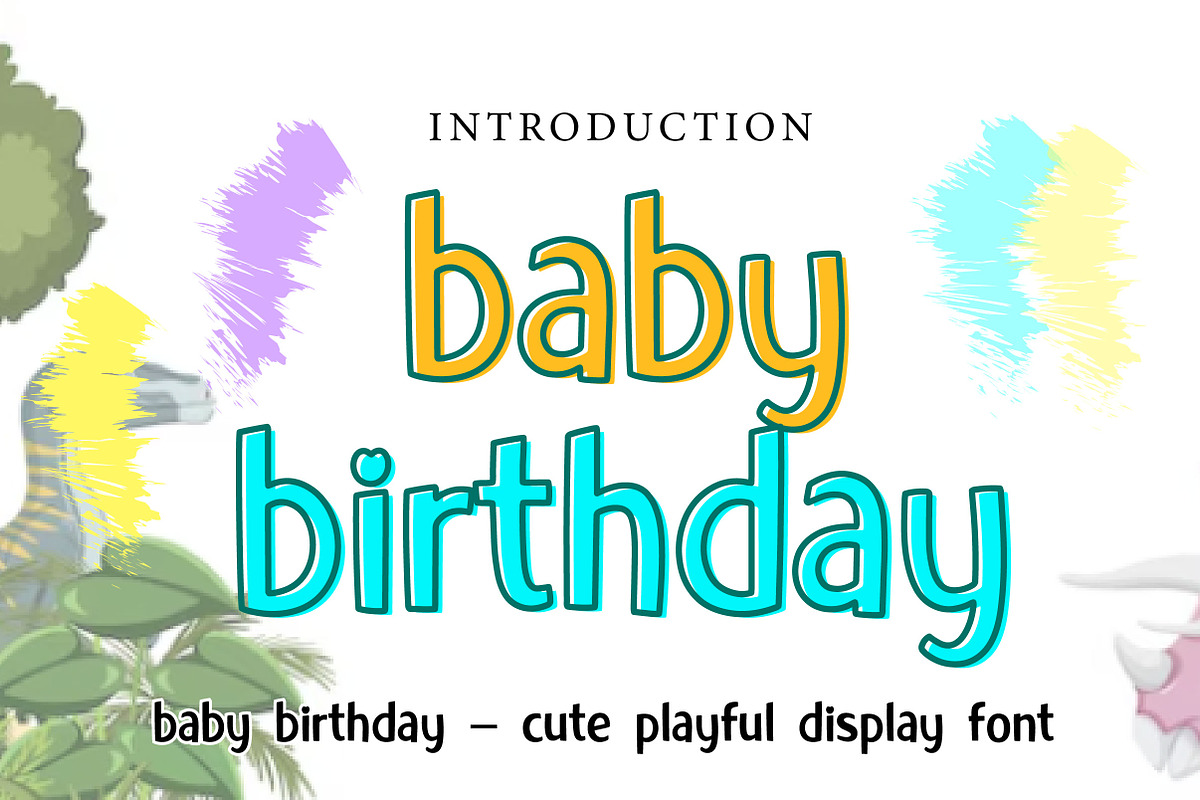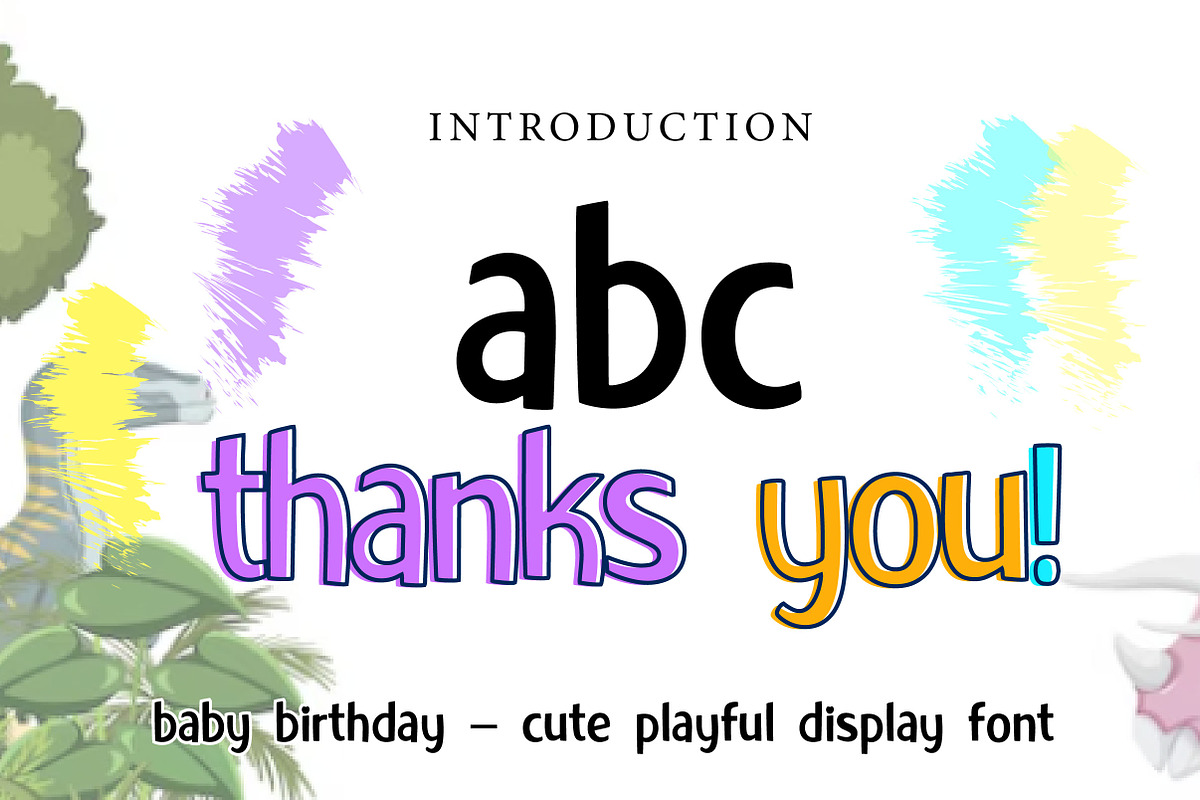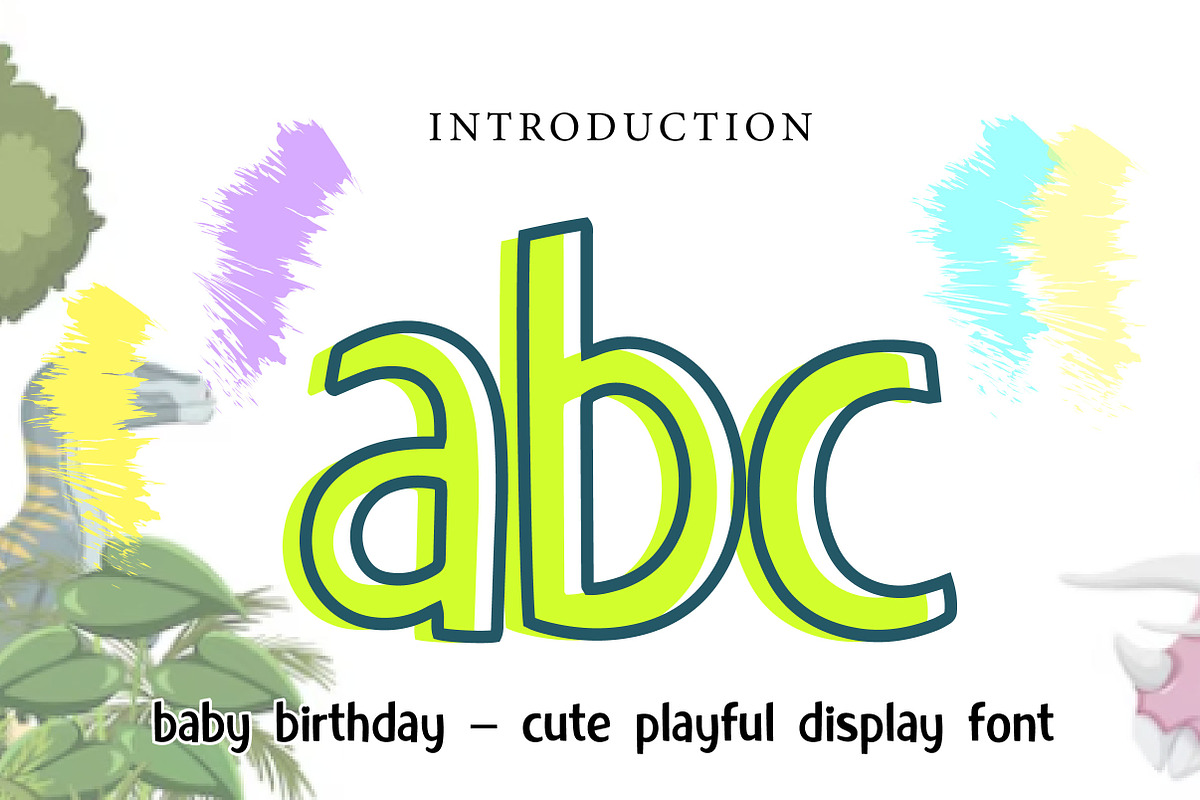
Baby Birthday
Baby Birthday – Cute Playful Display Font
Baby Birthday is a cute, soft, and playful display font, perfect for baby-themed designs, birthday invitations, kids branding, packaging, and cheerful creative projects.
Baby Birthday is a sweet and playful display font designed to bring joy, warmth, and cuteness to your designs. With its rounded shapes, soft curves, and friendly letterforms, this font creates a delightful and approachable look that feels perfect for baby and kids-related themes.
Its simple yet charming style makes Baby Birthday ideal for projects that need a lighthearted and cheerful touch. Whether you are designing birthday invitations, baby shower cards, nursery decor, kids branding, packaging, posters, or social media graphics, this font helps your typography stand out in a fun and lovable way.
The clean and rounded structure keeps your text easy to read while maintaining a playful personality. Suitable for both print and digital use, Baby Birthday is a perfect choice for designers who want a font that feels cute, friendly, and full of happiness.